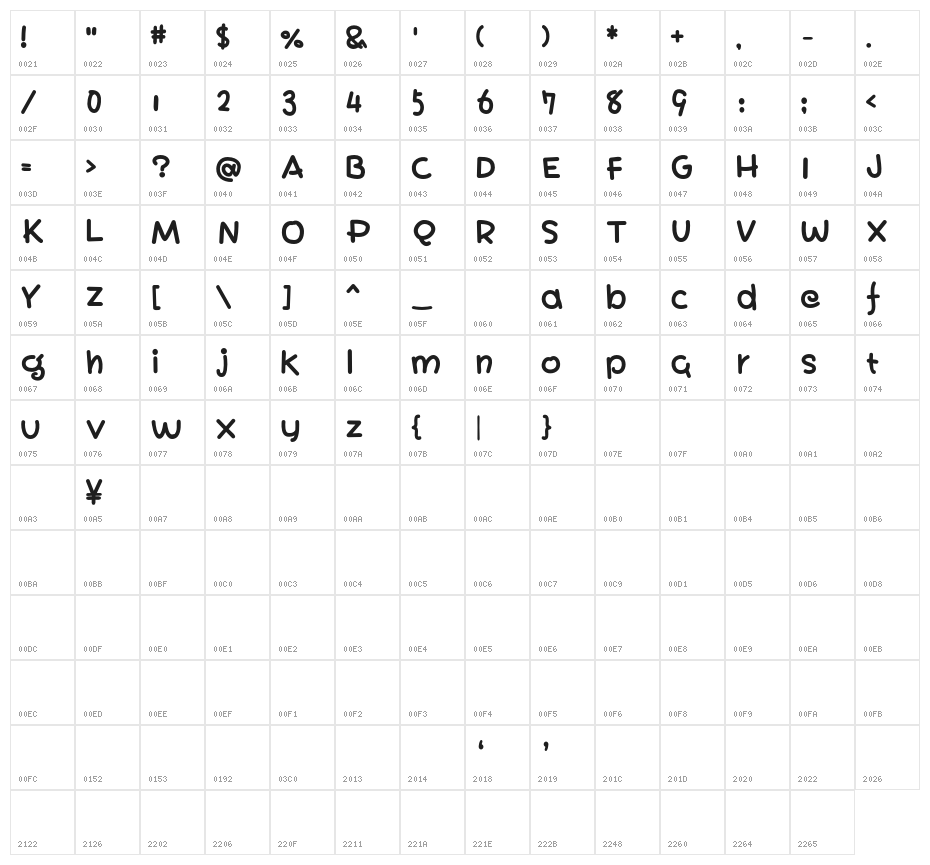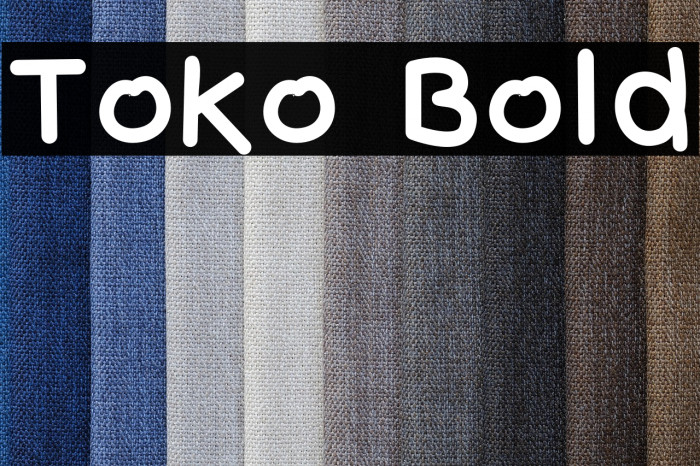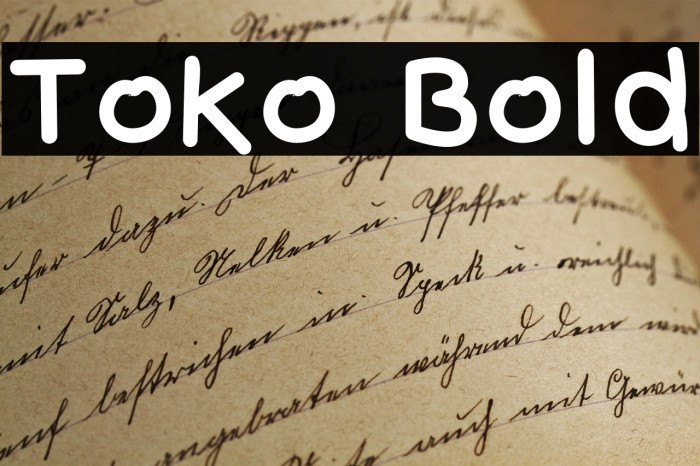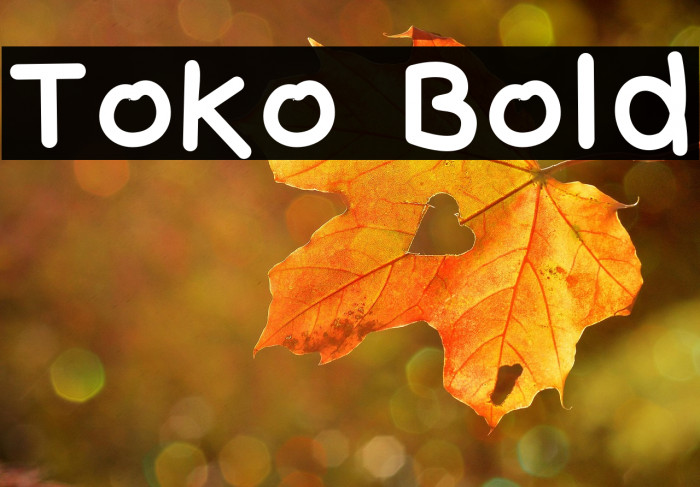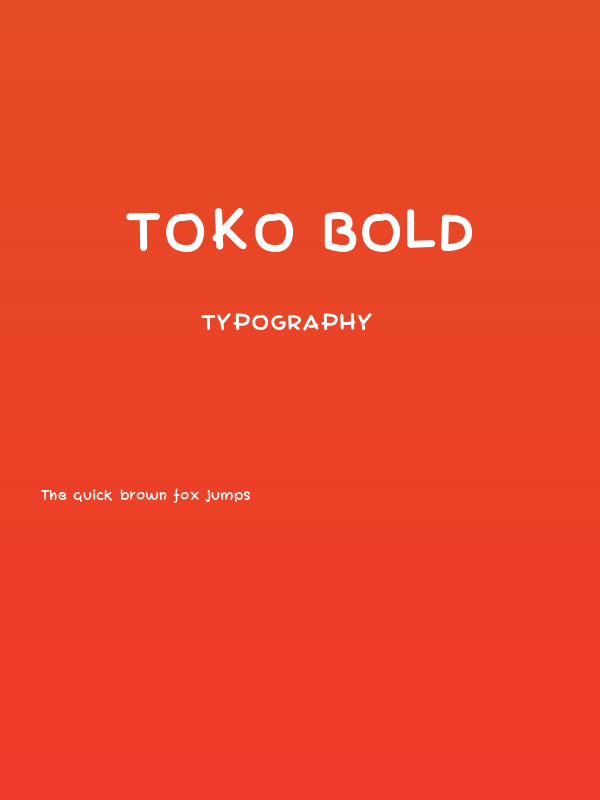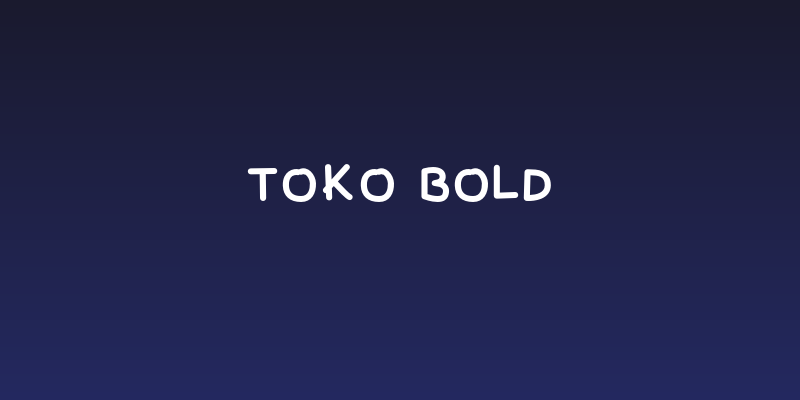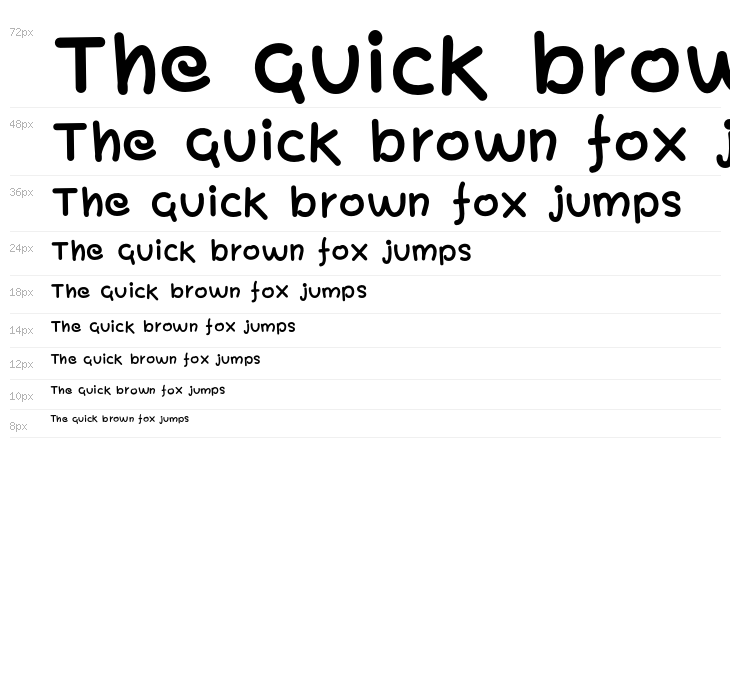
Toko Bold Font
Toko Bold Description
This playful and bold font features rounded, thick strokes that give it a friendly and approachable appearance. The characters are slightly irregular, adding a hand-drawn feel that enhances its charm. The uppercase and lowercase letters maintain a consistent style, with rounded edges and a uniform thickness throughout. Numbers and special characters follow the same design principles, ensuring a cohesive look across all text elements. The font's informal style makes it ideal for projects that require a touch of whimsy and creativity.
| Overall Style | Playful |
| Use Case | Logos, Headlines, Posters |
| Proposed Projects | Ideal for children's books, playful branding, casual invitations, and creative posters. |